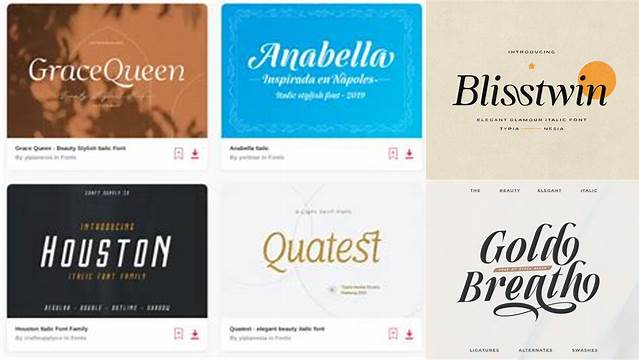
Download Stylish Italic Fonts: Your Ultimate Guide
Hey guys! Are you looking to spice up your designs with some flair? Then, you've come to the right place! We're diving headfirst into the world of italic fonts download options. These fonts can add a touch of elegance, personality, and visual interest to any project, whether you're crafting a sleek presentation, designing a website, or just jazzing up your social media posts. This guide is your one-stop shop for everything you need to know about finding, downloading, and using these beautiful fonts. So, let's get started and explore the wonderful world of italic fonts together! We'll cover everything from where to find the best free and paid options to tips on using them effectively. Ready to make your text pop? Let's go!
Choosing the Right Italic Font for Your Project
Selecting the perfect italic font for your project is more than just picking a pretty font. It's about aligning the font's style with the tone, purpose, and target audience of your work. The font you choose can significantly impact how your message is perceived. Before choosing a font, consider the project's overall tone. Are you aiming for elegance, playfulness, or professionalism? Different fonts evoke different emotions, so choose one that aligns with the message you want to convey. Also, consider the readability of the font. While italics can add flair, some are difficult to read, especially in long paragraphs. Ensure your chosen font is readable at the size and context where it will be used. Think about your target audience. A font that appeals to a younger audience may not be appropriate for a more professional audience. The context of the project is also important. A font suitable for a website might not be ideal for a printed document. Experiment with different fonts to see how they look in your designs. Try different font sizes, weights, and styles to find the perfect fit. Look at other design elements, such as the overall layout, color scheme, and images. Ensure your chosen font complements these elements. Do you need the font for a logo, headings, or body text? Different fonts may be suitable for different parts of your design. Consider the font's legibility for long passages of text. A font used in a headline can be different from one used for the body text. The more you practice, the better you will become at picking the right font for any given project. Choosing the perfect font is an exciting process that lets you add your unique touch to any project.
Italic Font Styles and Their Characteristics
The world of italic font styles is vast and diverse, offering a wide range of characteristics that can completely change the feel of your design. Let's explore some common types. First, we have classic italic fonts. These fonts usually reflect the traditional calligraphy style, with elegant, flowing letterforms. They're great for projects where you want to add a touch of sophistication or a sense of classic charm. Then there are modern italic fonts, which often feature clean lines and contemporary design elements. They work well for modern projects, conveying a sense of style and innovation. Some fonts also offer handwritten italic fonts, which imitate the look of handwriting. They can add a personal touch to your projects. These fonts are ideal for projects that need a friendly or informal feel. You'll also find script italic fonts, which are more stylized versions of handwritten fonts. They are often used for invitations, logos, and branding materials where a touch of flair is needed. Display italic fonts are designed to be eye-catching and are often used for headlines or short pieces of text. They can be quite bold and unique. Slanted fonts are simply regular fonts that have been slanted to create an italic effect. Be careful, however, as they don't always offer the same elegance as true italics. The beauty of italic fonts is their ability to convey diverse messages. Choose the font style that best suits your project, considering its tone, target audience, and purpose. By exploring the various styles, you'll gain the skills to enhance any design with the perfect italic fonts.
Using Italic Fonts Effectively in Design
Using italic fonts can be a game-changer in design if done correctly. Let's dive into how to use them effectively to enhance your projects. Firstly, think about where to use italics. They're often used to emphasize words or phrases, add emphasis, or signal a change in thought. When adding emphasis, use italics sparingly. Overusing them can make your text look cluttered and hard to read. Use them selectively for highlighting important words or phrases. When you are designing a presentation, use italics for speaker notes or to indicate dialogue. It helps the audience differentiate between the main content and secondary information. Keep readability a priority. Make sure your chosen font is readable. Opt for clear and legible fonts, especially for body text. Consider using italics for captions under images or illustrations. This provides context and information while maintaining a visually appealing design. Combine italics with other font styles. Use bold or different font weights to create contrast and visual interest. If you are designing a website, use italics for titles, headings, or pull quotes to attract the visitor's attention. Balance is key. Use italic fonts with other font styles to achieve an overall design. If you're using an italic font for a heading, try a non-italic font for the body text. Lastly, practice your use of italic fonts. The more you experiment with these fonts, the more confident you will become.
The Future of Italic Fonts: Trends and Innovations
The world of italic fonts is constantly evolving, and new trends and innovations are on the horizon. One notable trend is the growing emphasis on variable fonts. Variable fonts allow designers to adjust the weight, width, and style of a font within a single file. This gives designers more flexibility and control. They can also enhance a design's overall visual impact. There's also a growing interest in custom fonts. More and more designers are creating unique fonts to align with their brands. Font pairing is another significant trend. Designers are learning how to use different fonts together. The use of AI is also beginning to impact the design of italic fonts. AI can be used to automate aspects of the font design process. This can enhance the design experience and create new possibilities. There's also a growing demand for fonts that are accessible and inclusive. This involves creating fonts that are easy to read and that support different languages and character sets. In the future, expect more flexibility and innovation in italic fonts. There's a world of exciting possibilities ahead for designers and users. By exploring these trends, you can stay ahead of the curve and choose the best italic fonts download for your project.